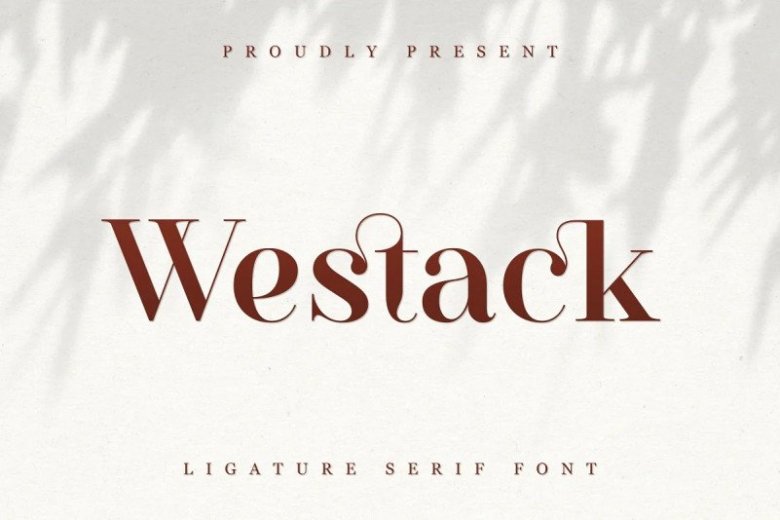
Westack Font
Westack Font is an elegant and unique font that uses ligatures to smoothly link letters. Made from font designer named Almarkha Type. Inspired by the famous minimalist logo, perfect for the purposes of designing templates, brochures, videos, advertising branding, logos and more.